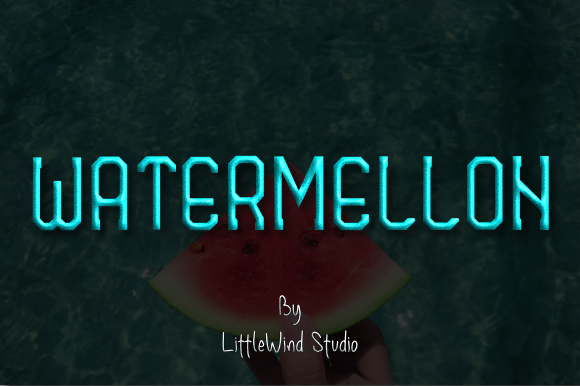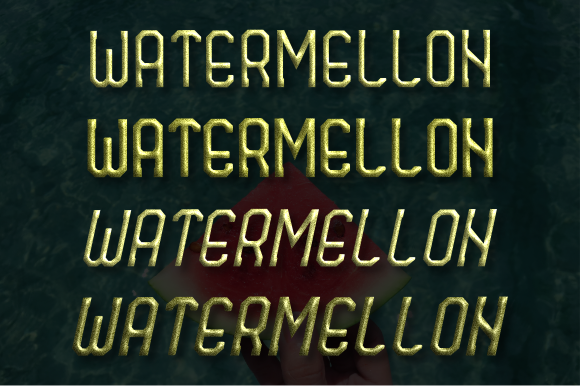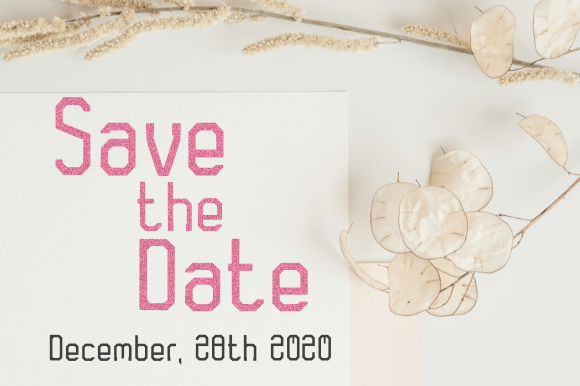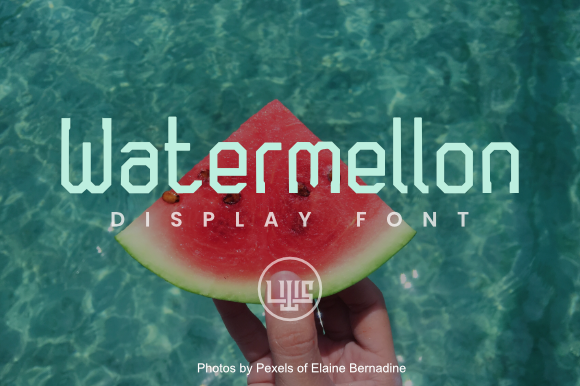
Watermellon
Watermellon: An Elegant and Compact Slab Serif Font
Watermellon is a distinctive slab serif font that combines elegance with a compact design. This versatile typeface offers designers a powerful tool for creating impactful typography across a wide range of modern and vintage-inspired projects.
Key Features of Watermellon
• Elegant Design: Features refined letterforms that exude sophistication.
• Compact Structure: Offers a space-efficient design without compromising on style.
• Solid Lines: Incorporates sturdy, well-defined strokes for clarity and impact.
• Slab Serif Structure: Maintains the characteristic thick, rectangular serifs typical of slab serif fonts.
• Versatile Application: Suitable for both modern and vintage-inspired designs.
Ideal Uses for Watermellon
Watermellon’s unique characteristics make it particularly well-suited for:
• Modern envelopes and stationery
• Invitation designs for various occasions
• Craft projects requiring a touch of elegance
• Posters and promotional materials
• Vintage-inspired designs
• Logo creation and branding projects
When incorporating Watermellon into your designs, consider the following tips:
• Use for both headlines and short blocks of text to showcase its elegant and compact nature
• Experiment with different sizes to highlight the font’s solid lines and slab serif details
• Consider pairing with complementary sans-serif fonts for body text to create contrast
• Take advantage of its versatility across both modern and vintage-themed projects
Watermellon is an excellent choice for designers looking to add an elegant and compact slab serif font to their typographic toolkit. Its ability to enhance various design projects makes it stand out in the world of typography. Whether you’re working on modern stationery, creating invitations, or developing vintage-inspired branding, Watermellon offers the perfect blend of sophistication and versatility.
Add Watermellon to your creative projects and explore how it can elevate your designs with its elegant and compact style. From stylish envelopes to impactful logos, this font provides the tools to create memorable typography that resonates with audiences seeking a touch of refinement in both modern and vintage contexts.